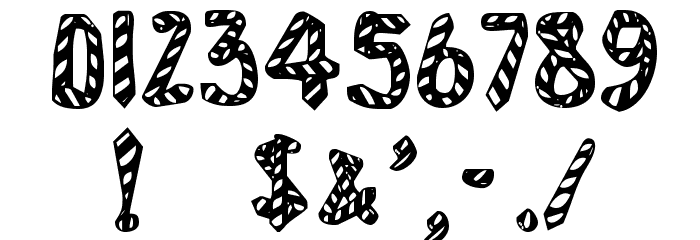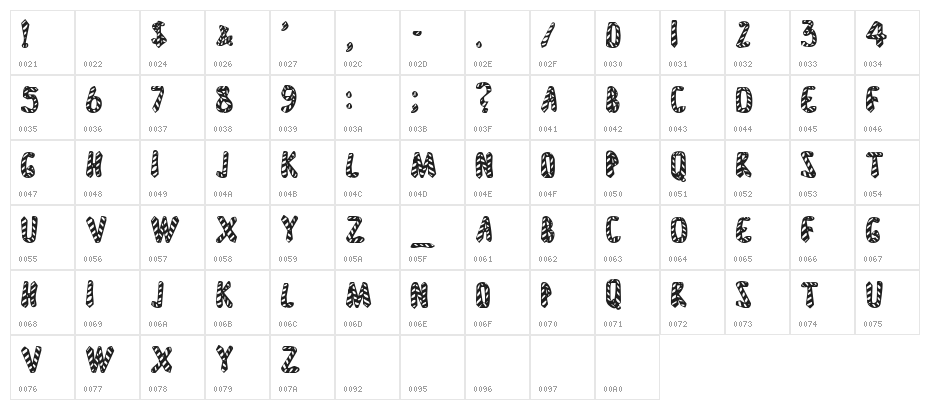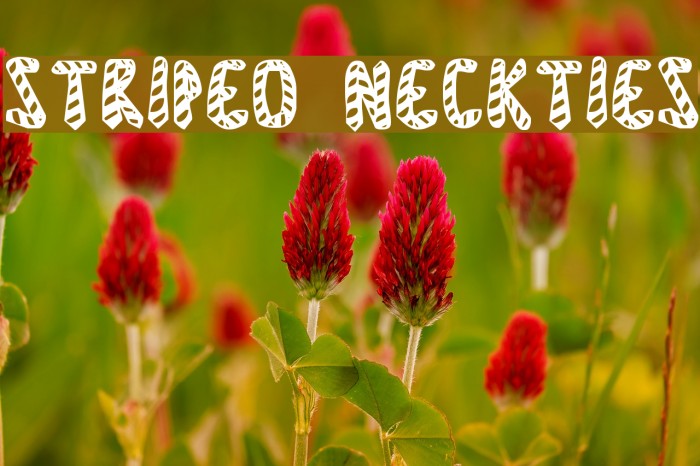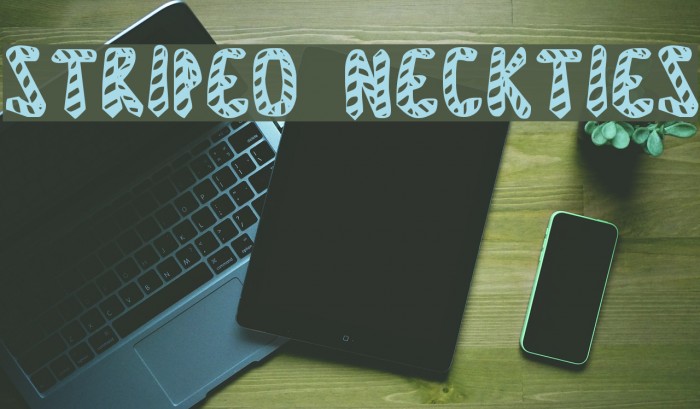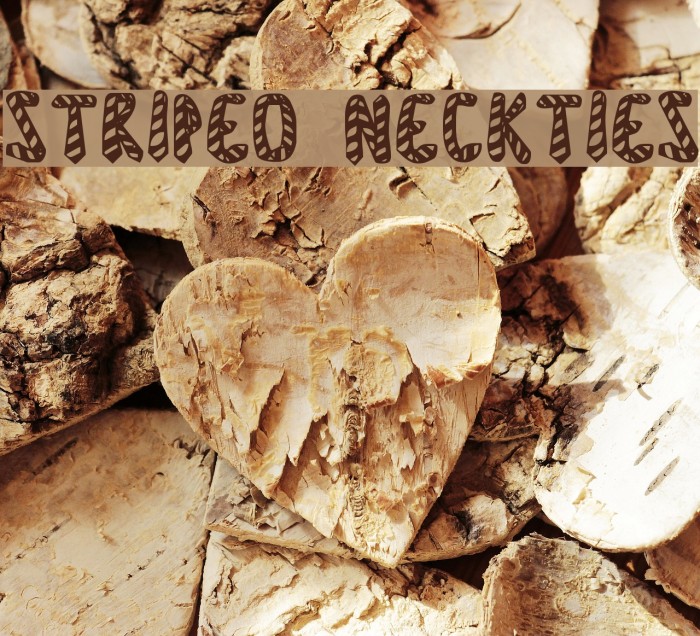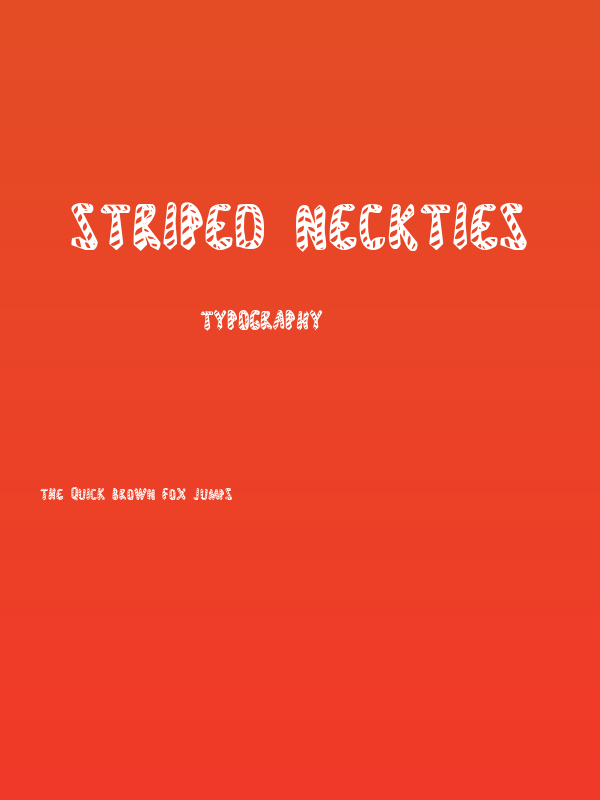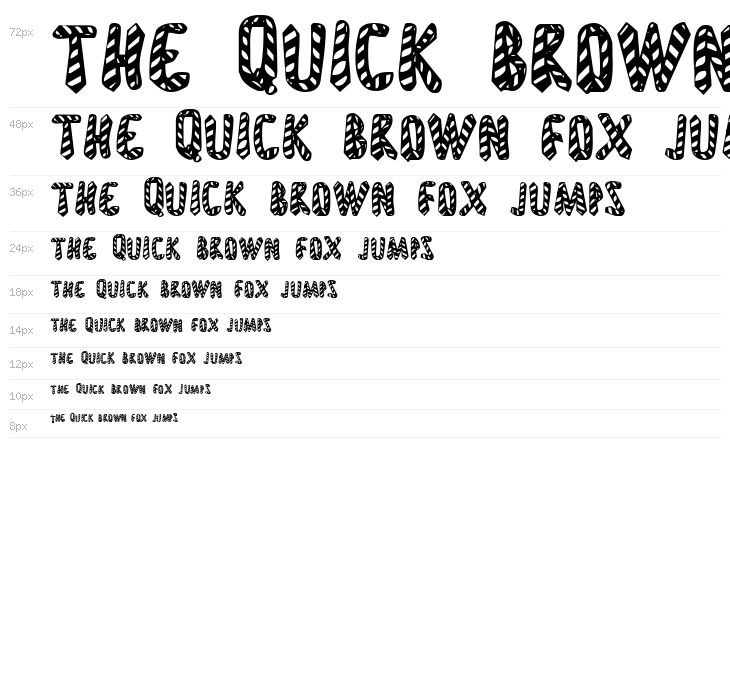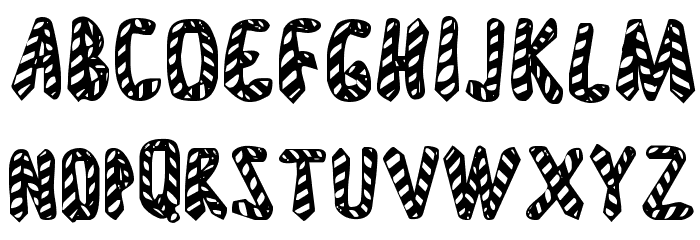
Striped Neckties Font
Striped Neckties Description
This font features a bold, playful design with a striped pattern running diagonally across each character. The letters are rounded and slightly whimsical, giving a sense of fun and creativity. The stripes add a dynamic and eye-catching element, making it suitable for attention-grabbing headlines or playful branding. The characters are evenly spaced, ensuring readability despite the decorative elements. This font is ideal for projects that require a touch of personality and flair, such as children's books, party invitations, or creative logos.
| Overall Style | Playful, Creative |
| Proposed Projects | Ideal for children's books, party invitations, creative logos, and playful branding. |